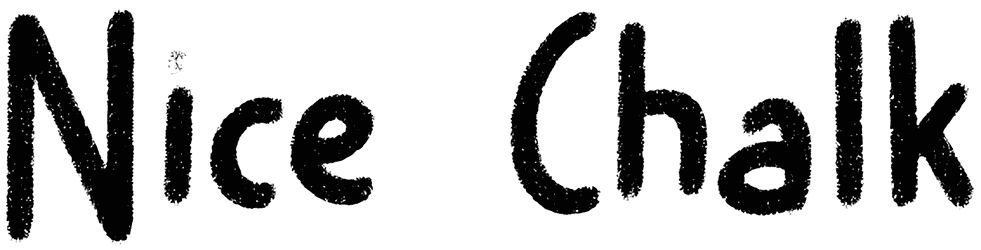
Nice Chalk Font
Nice Chalk font is like little pieces of childhood nostalgia that bring back memories of scribbling on the blackboard or doodling on the sidewalk. This chalk font has a relatively rough texture, with playful curves and an attractive appearance, creating an organic look that is hard to resist.
There is a sense of passion and warmth in the design of this trash font, which can easily be transferred to clothes, invitations, and greeting cards. So start writing your story with this script font.